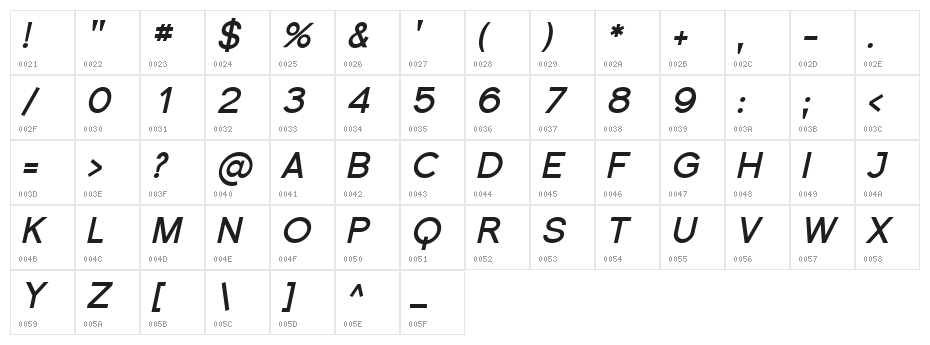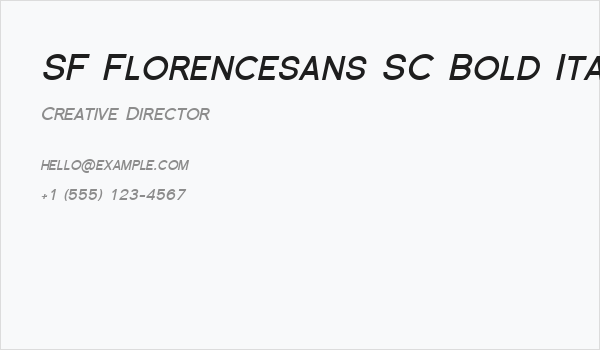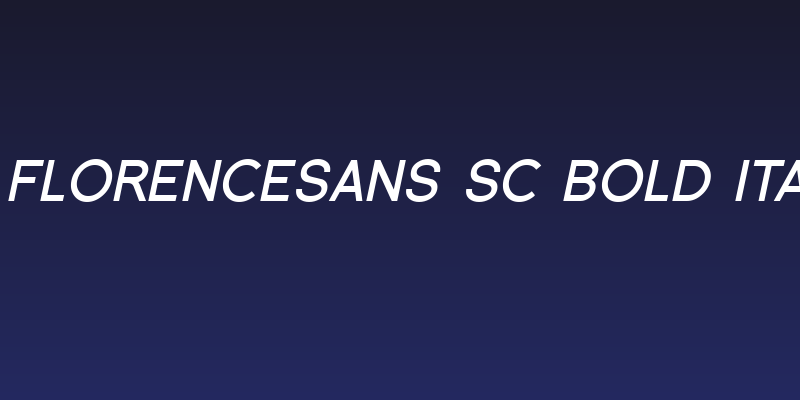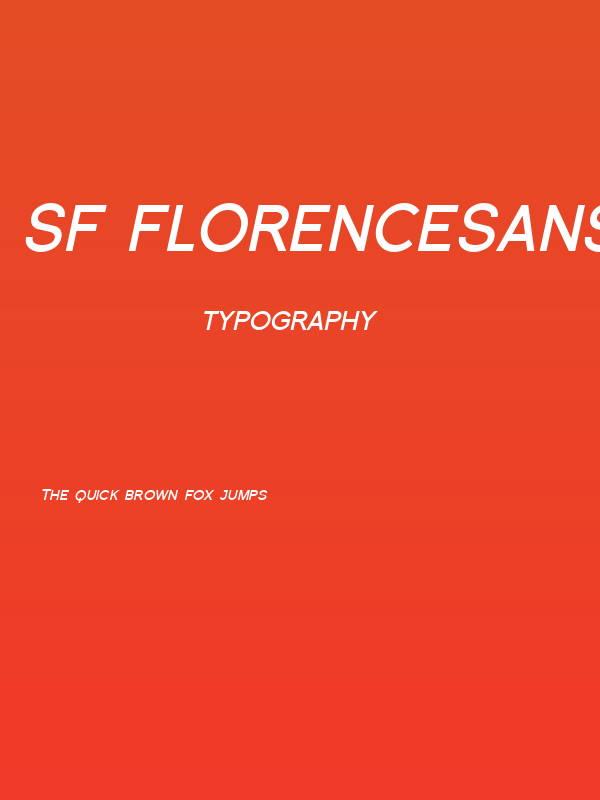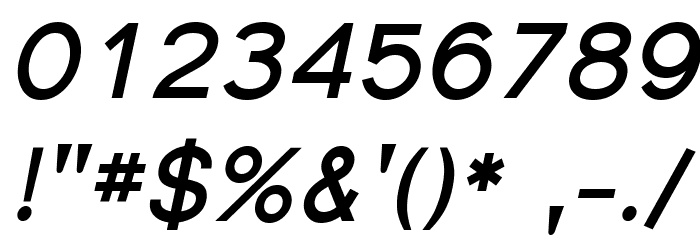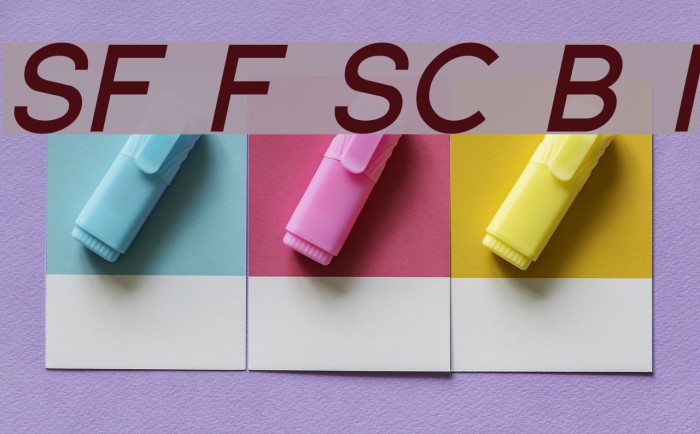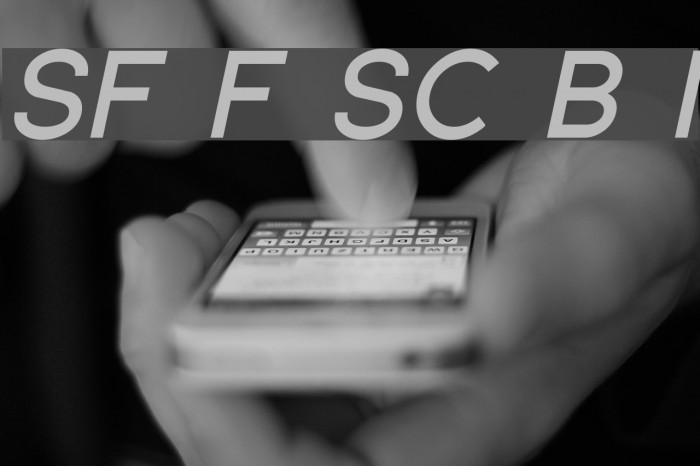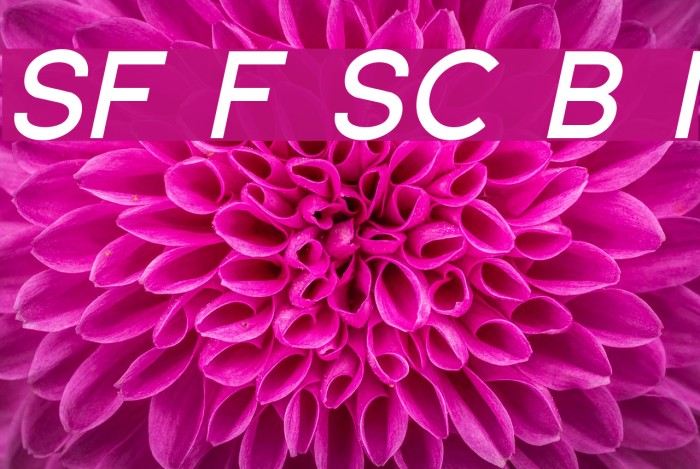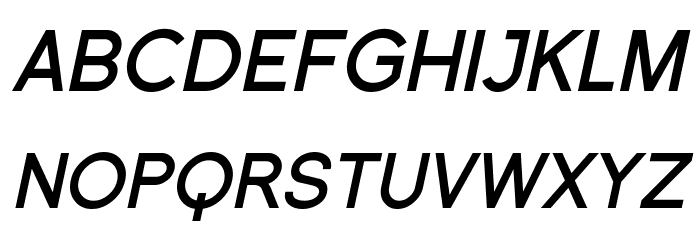
SF Florencesans SC Bold Italic Font
SF Florencesans SC Bold Italic Description
This font exhibits a sleek and modern sans-serif style with a bold and italicized appearance. The characters are slightly slanted, adding a dynamic and forward-moving feel. The strokes are consistent in thickness, providing a uniform look across all characters. The font maintains a clean and professional aesthetic, making it suitable for various design applications. The spacing between characters is balanced, ensuring readability while maintaining a compact appearance. The numerals are clear and distinct, matching the style of the alphabetic characters. Special characters are well-defined, complementing the overall design.
| Use Case | Headlines, Logos, Branding |
| Proposed Projects | Ideal for branding, advertising, headlines, and modern web design projects. |